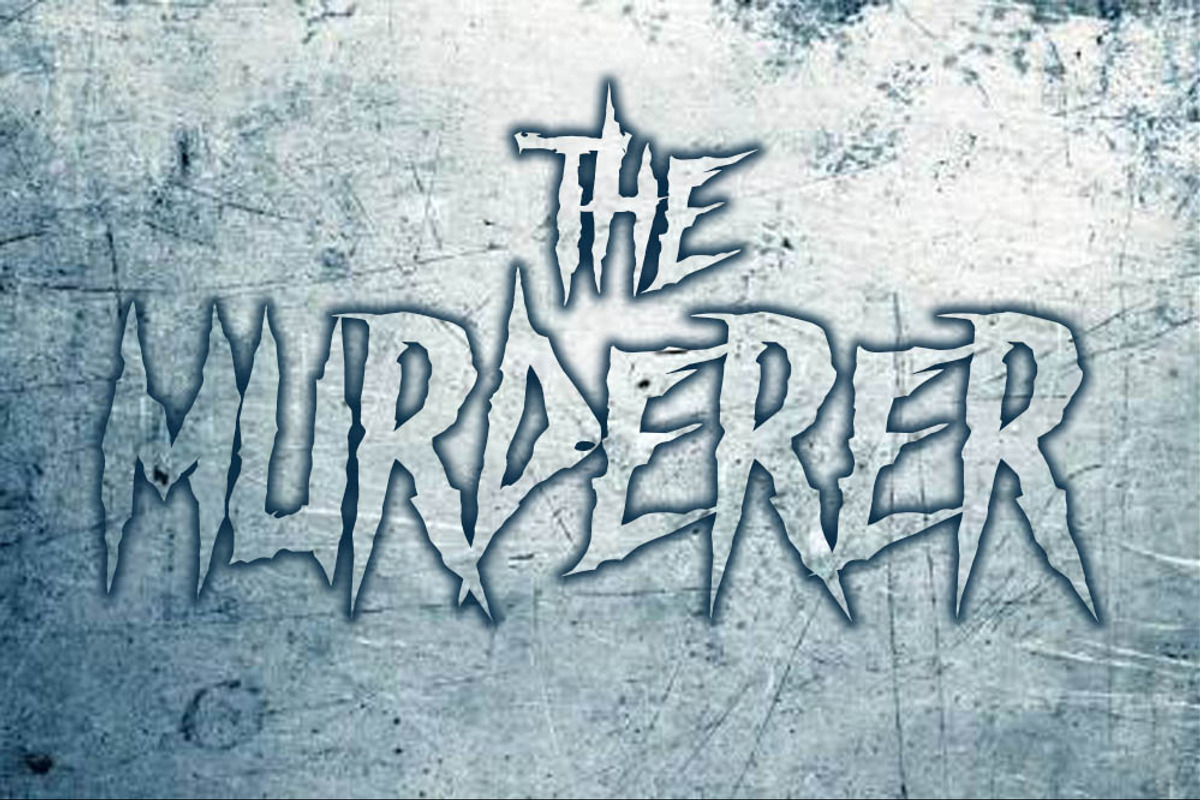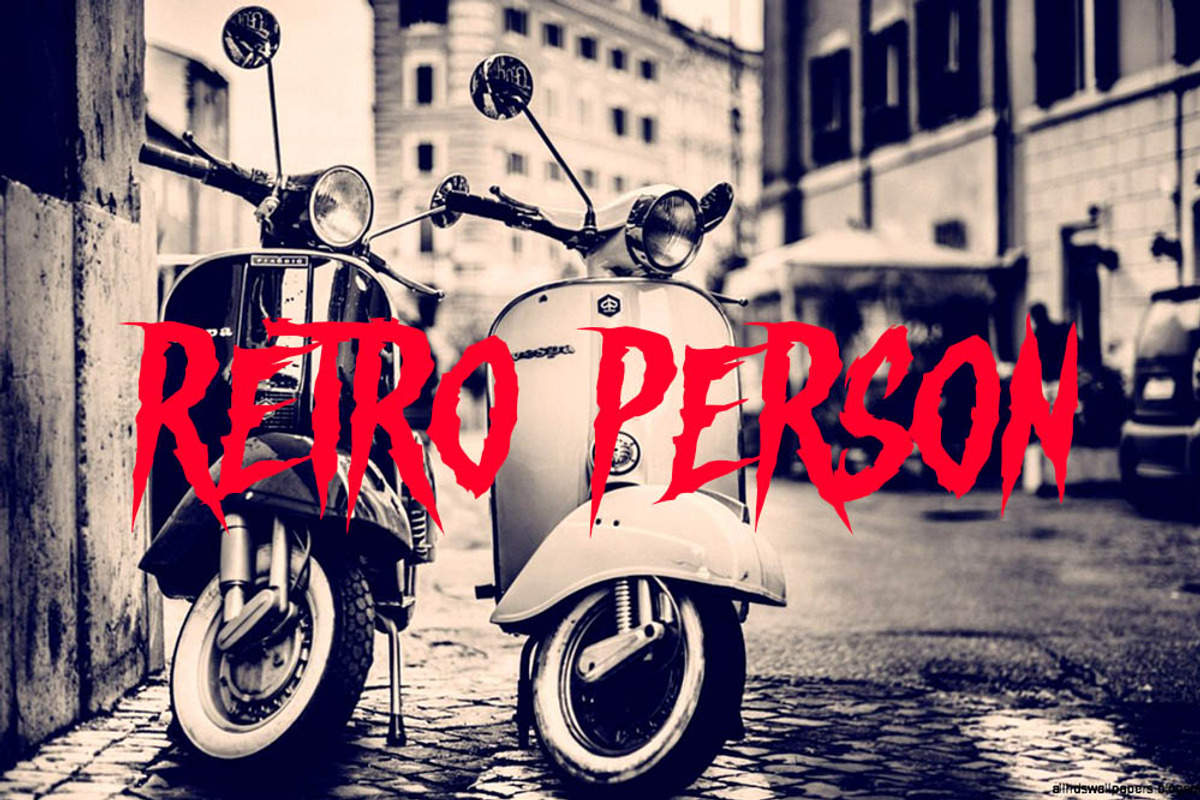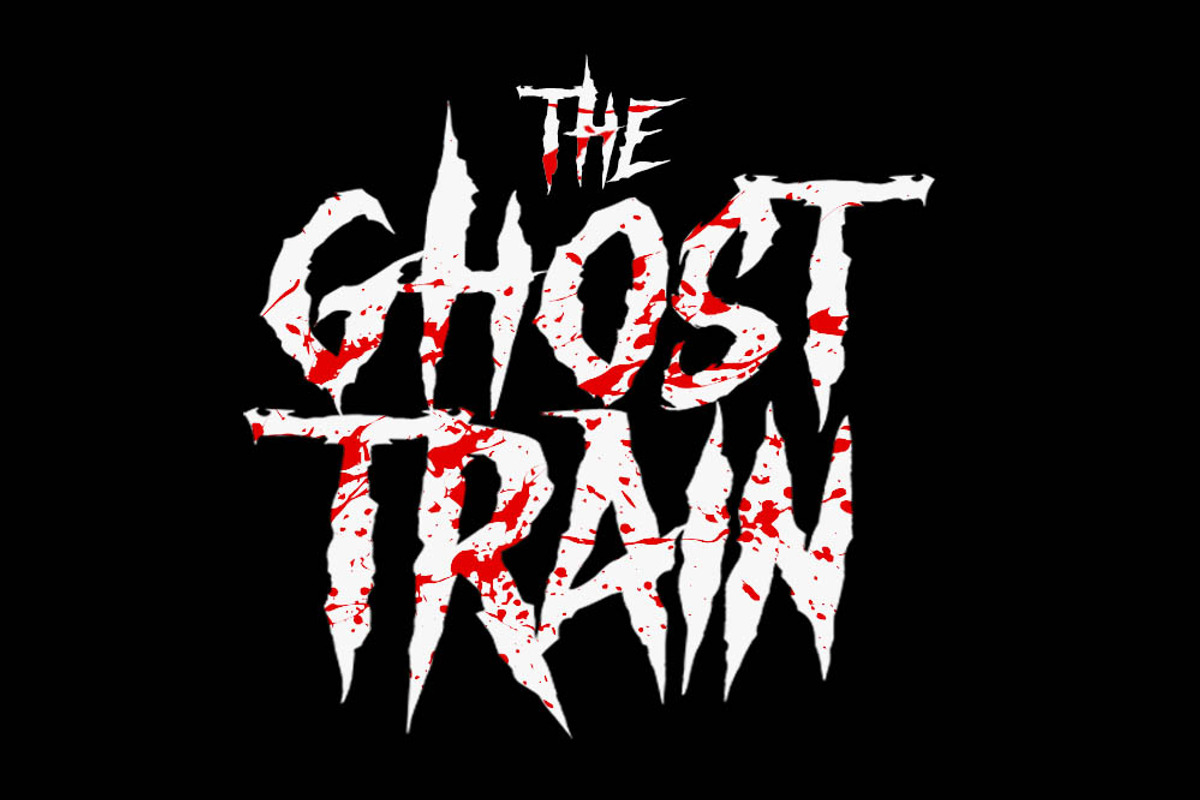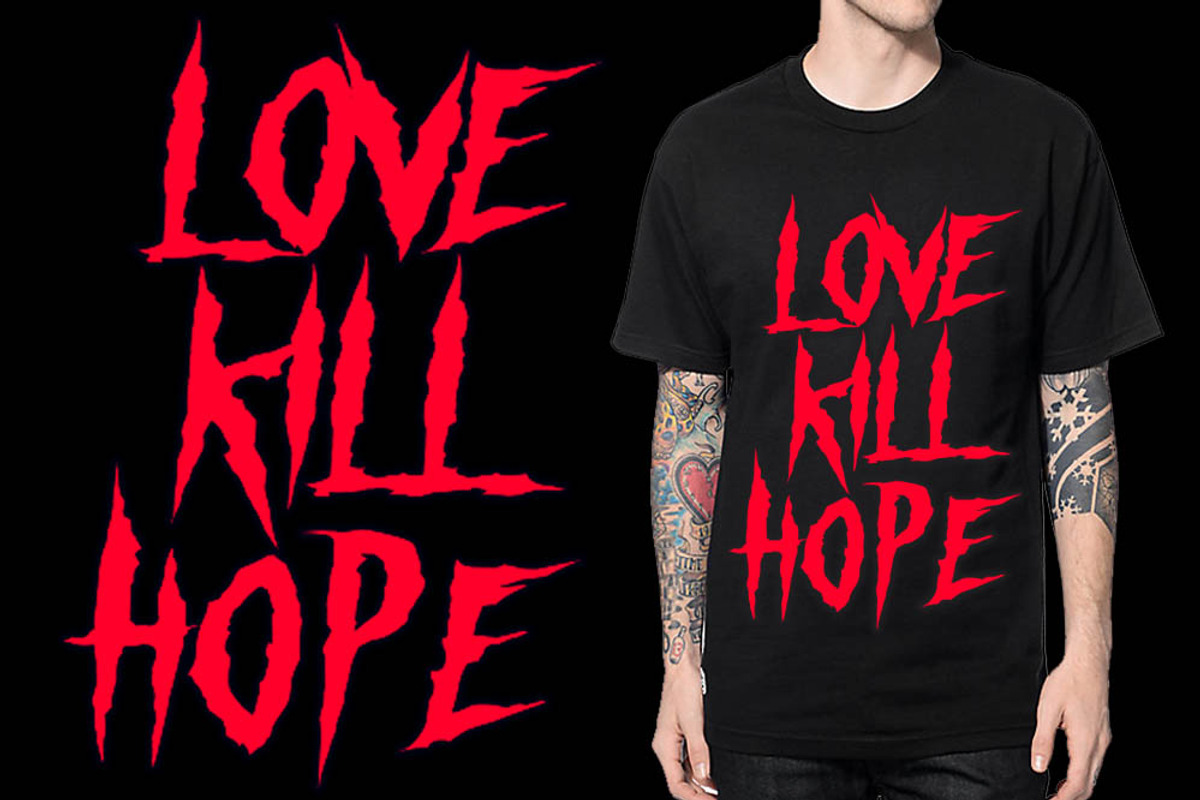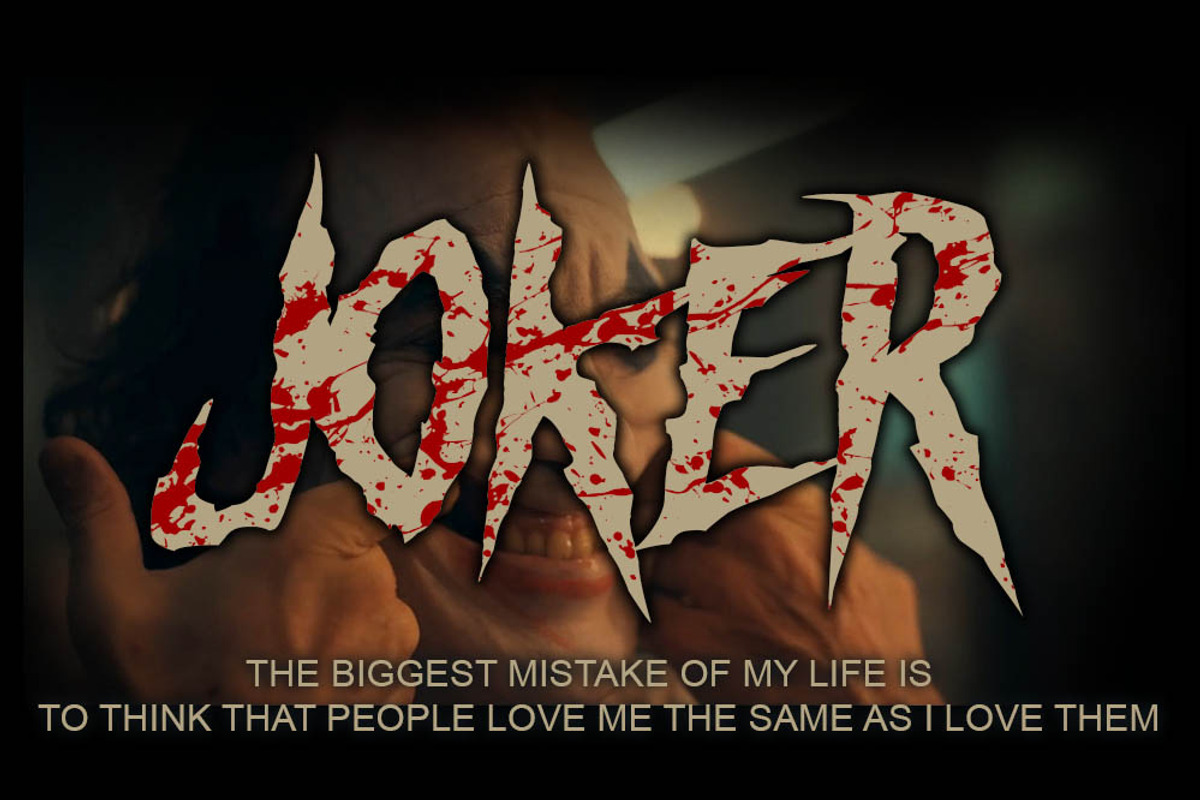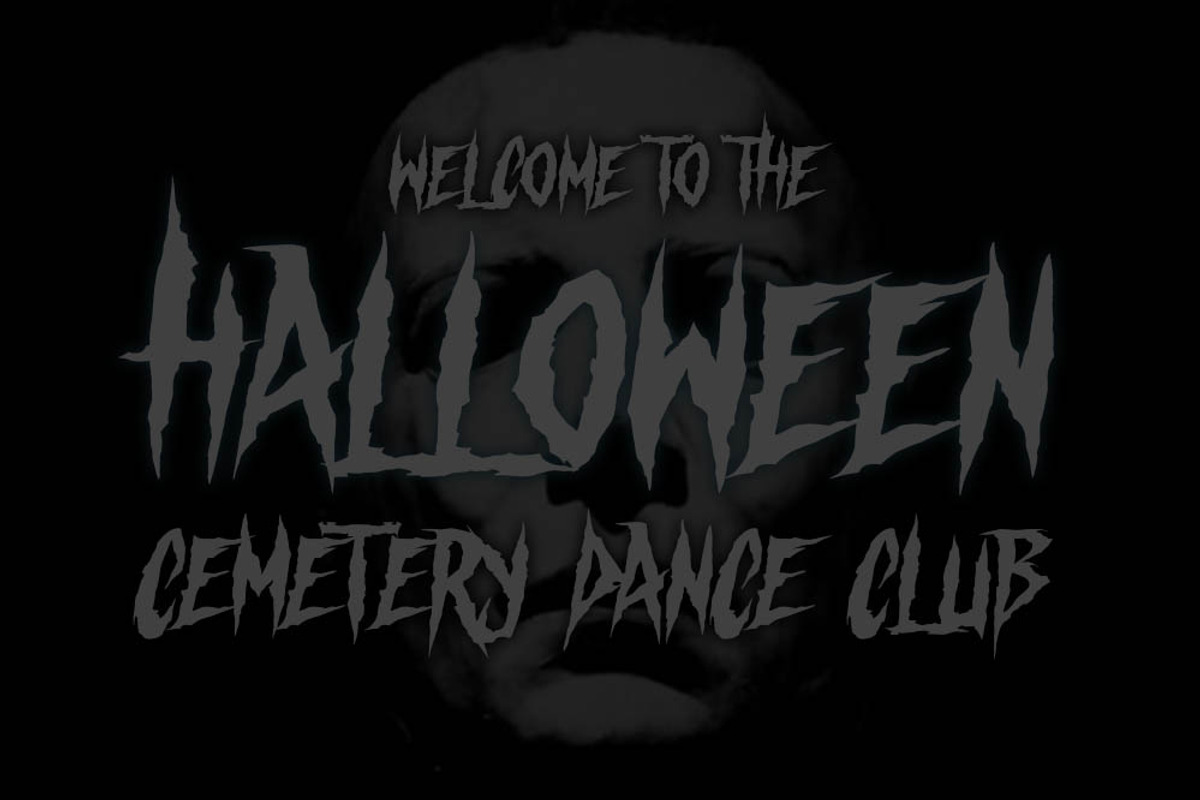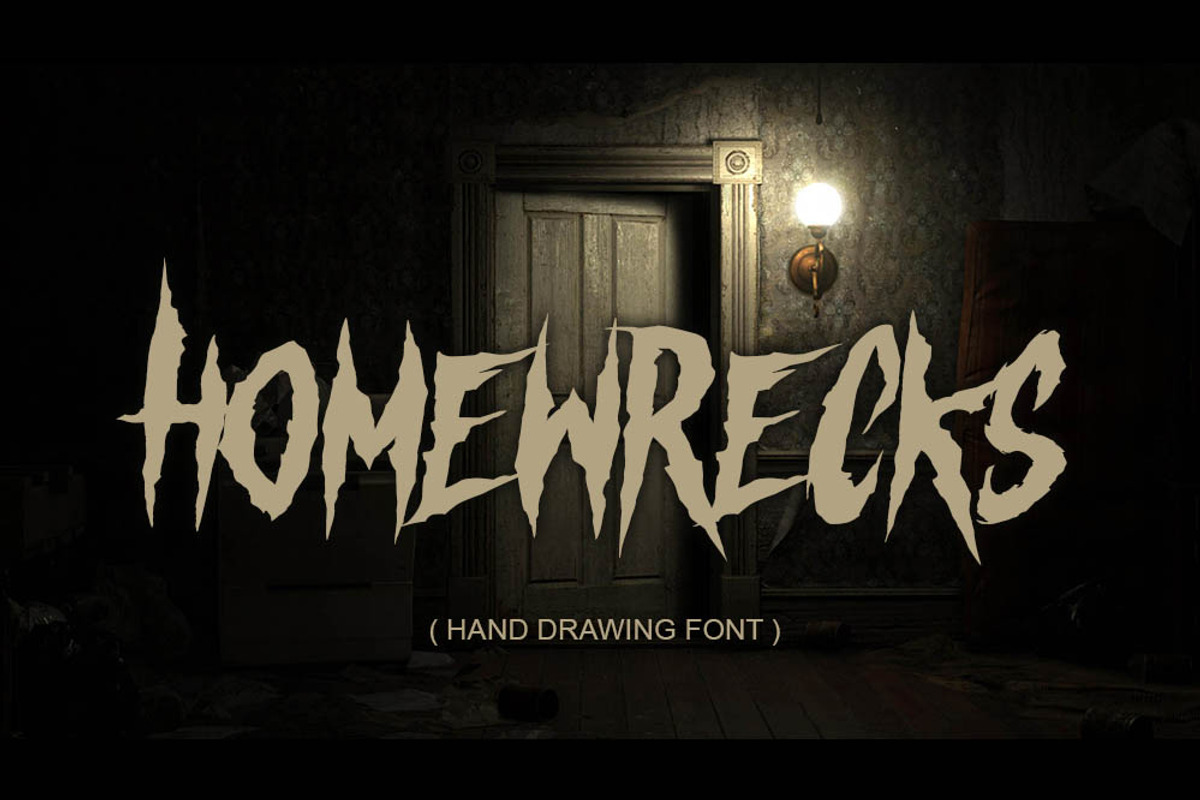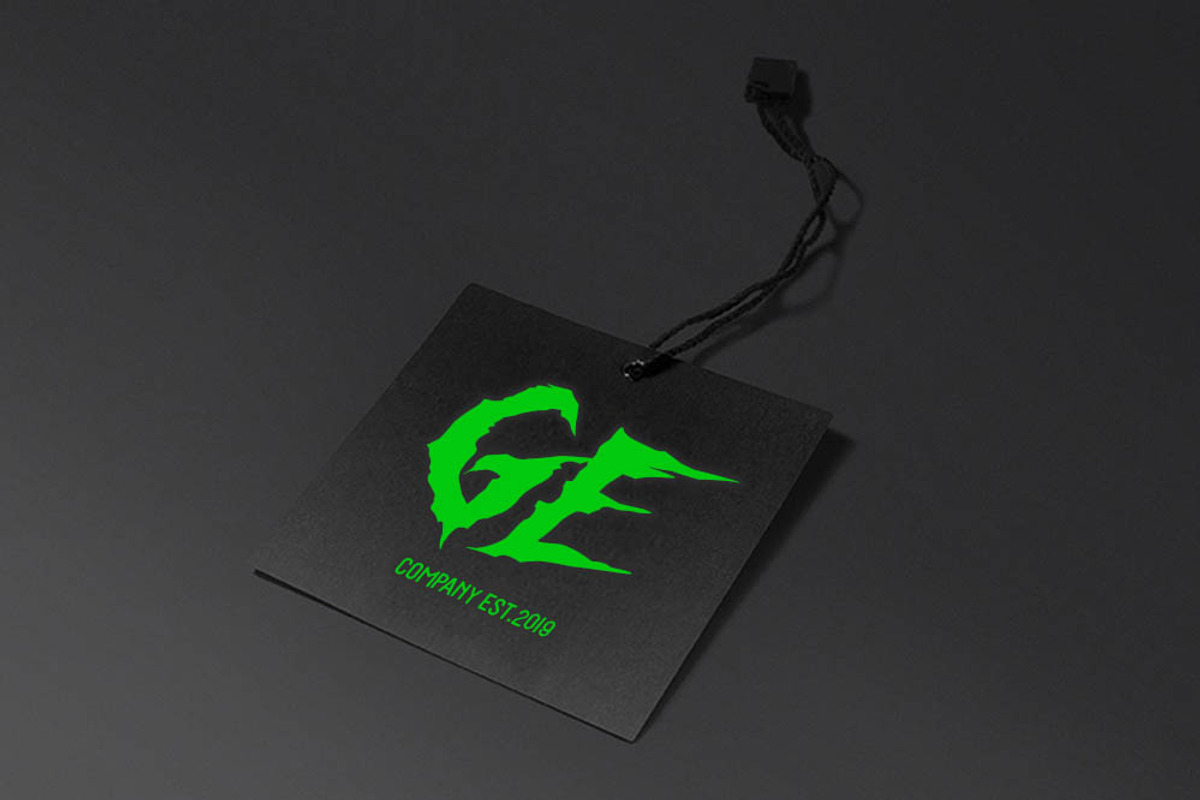
HOMEWRECKS ( horror metal font )
HOMEWRECKS is a hand drawing horror metal font that is still easy to read and use on various products such as logos, branding, clothing and more. consists of uppercase, lowercase, numeral & punctuations. It is very easy to use. enjoy it. thanks.